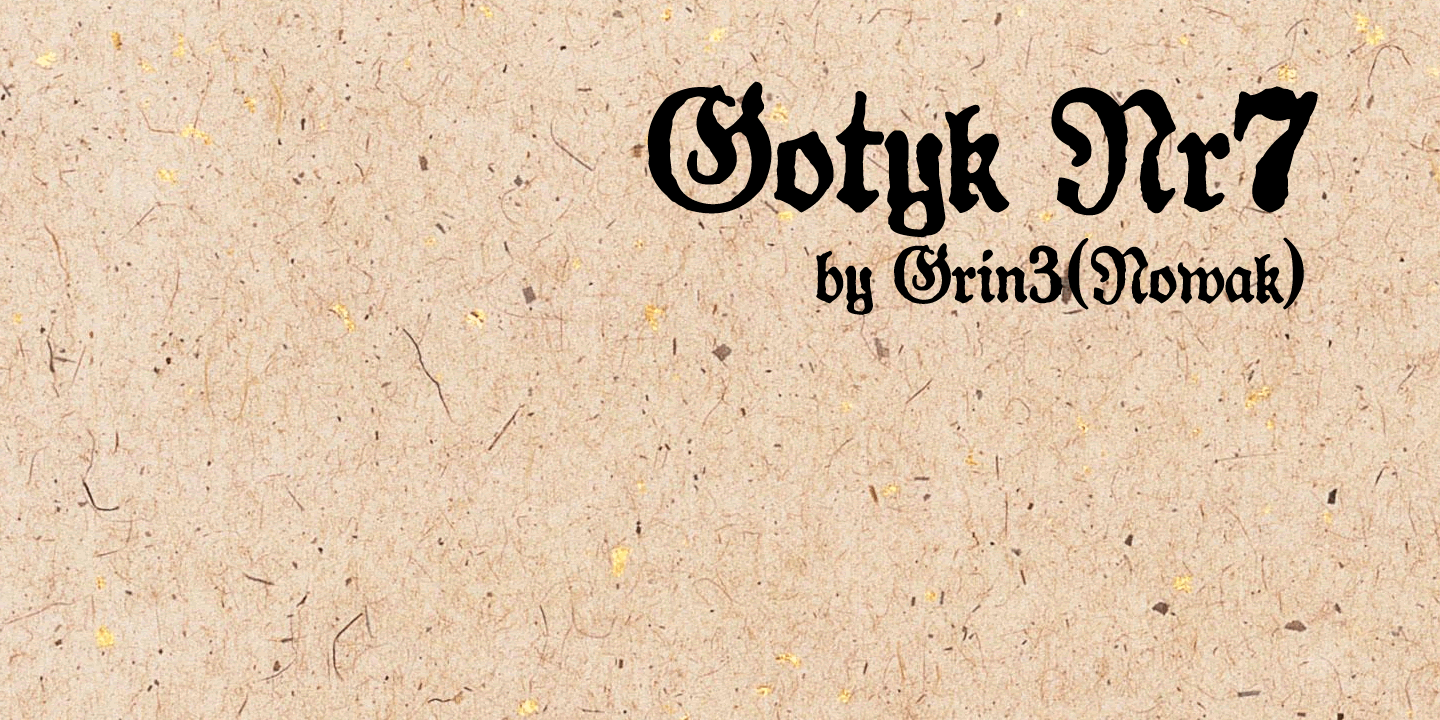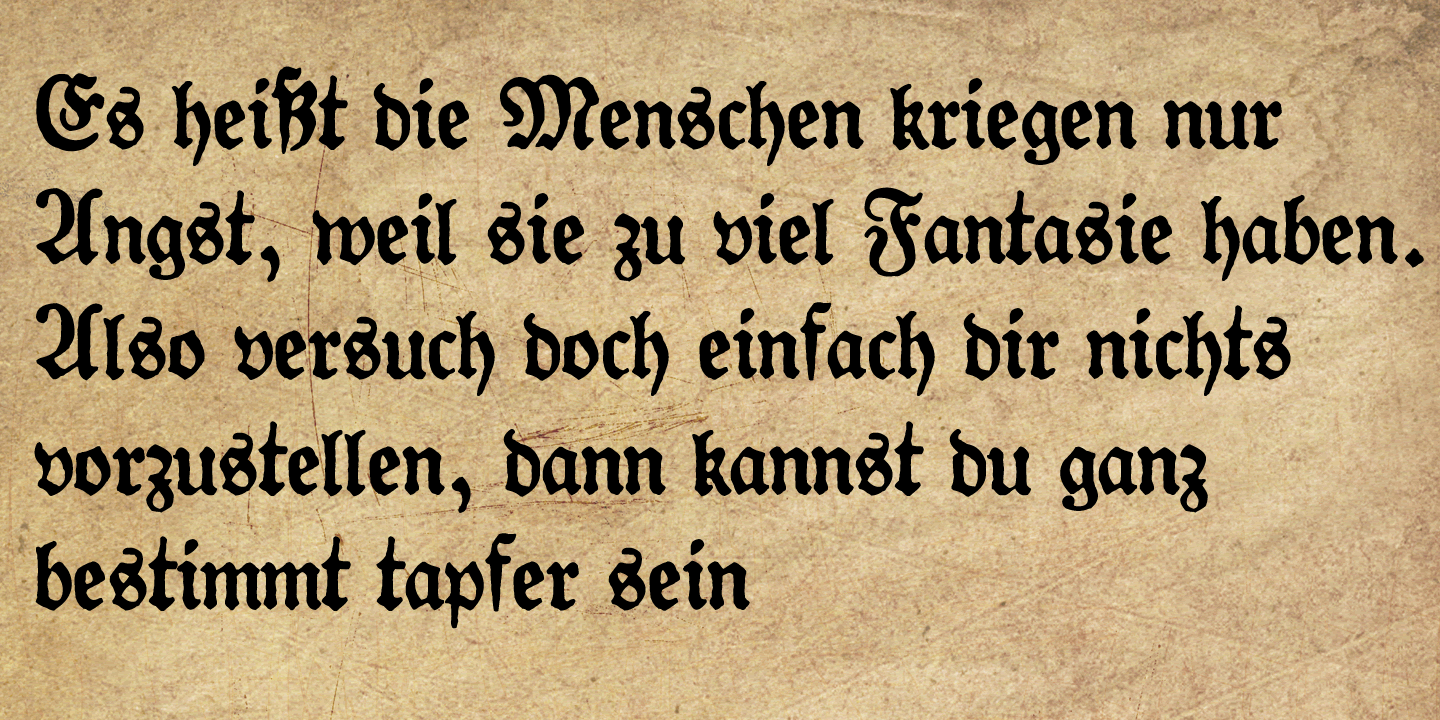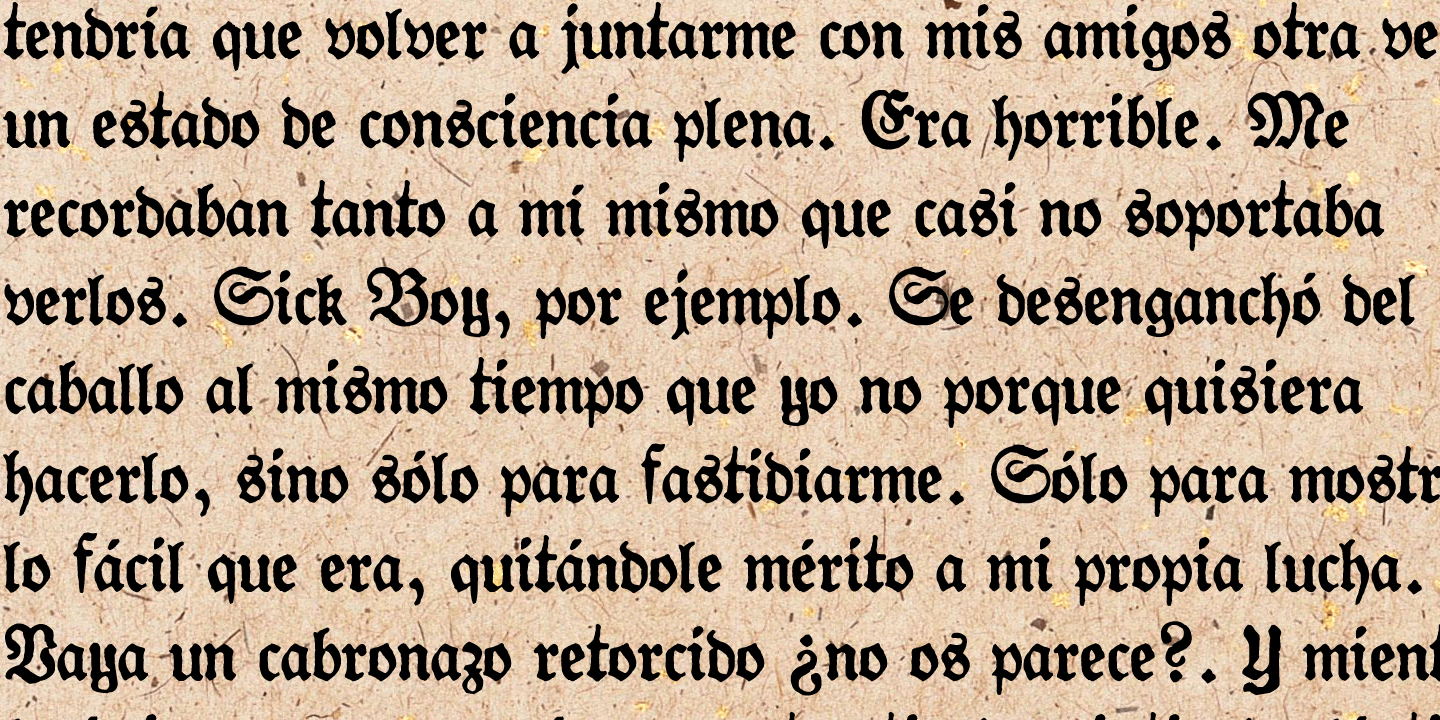
Gotyk Nr7
Font Family by GRIN3 (Nowak)
Buy NowGotyk Nr7 is a formal script with a distinctly historical character, blending handwritten warmth with a refined, old-world presence. Its letterforms suggest tradition and ceremony, making it a strong choice when you want typography that feels expressive, ornamental, and rooted in the past.
With its calligraphic tone, this single-style design works especially well for invitations, certificates, heritage branding, packaging, book covers, posters, and other display settings where a classic handwritten look can carry the message. It brings a composed, decorative voice without losing the personal feel that makes script typography so engaging.
Designed by GRIN3 (Nowak), the family includes 1 font style. For projects that call for formal script styling with historical flavor, it offers a focused and characterful option.